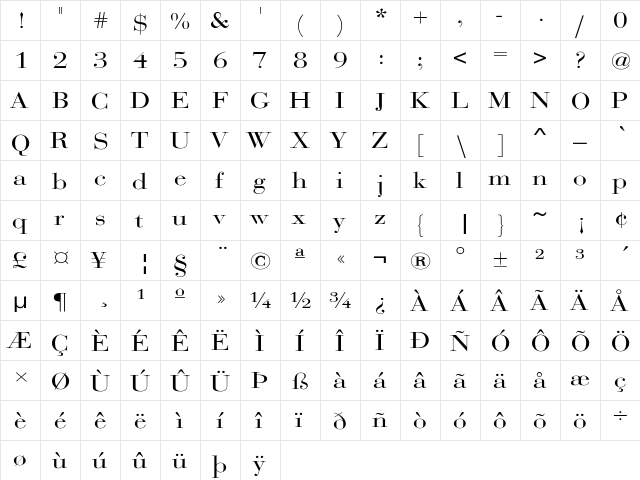
BodoniExt-Normal Regular
Design Context for BodoniExt-Normal Typeface
BodoniExt-Normal offers clean, dependable letterforms without strong stylistic allegiance, making it a practical choice for designers who need flexibility.